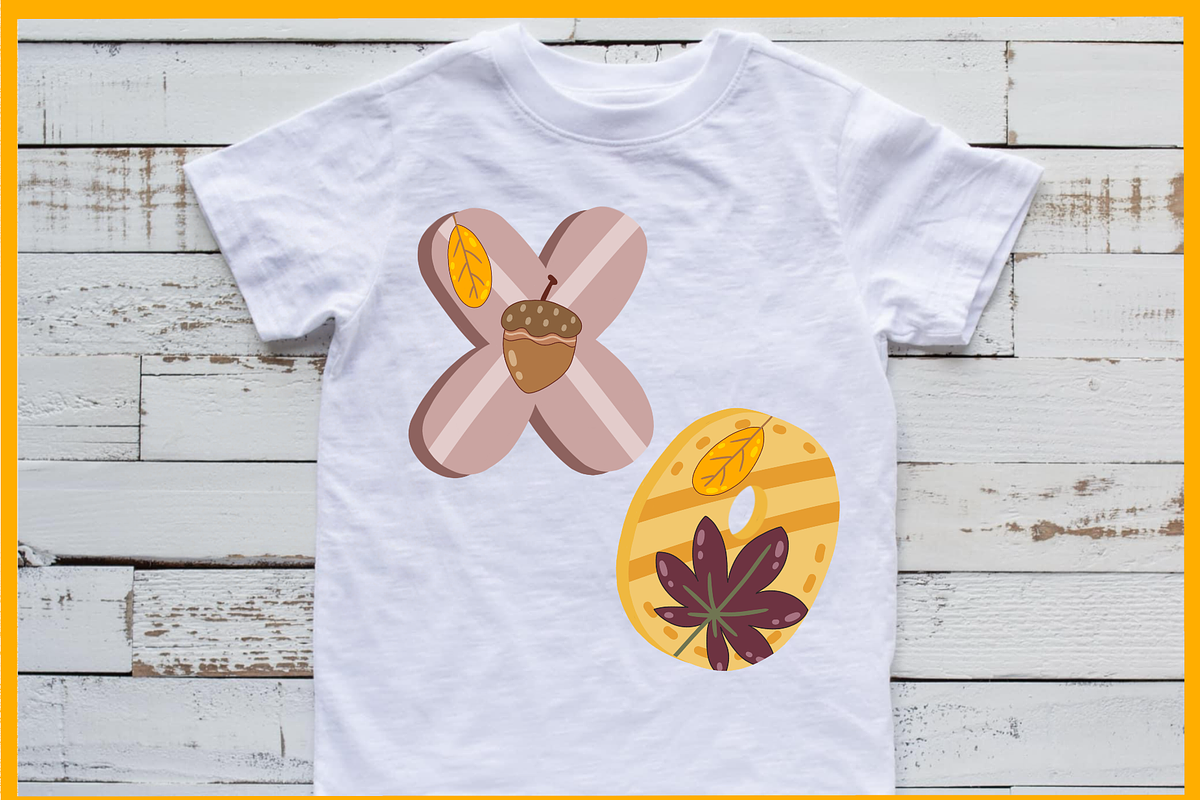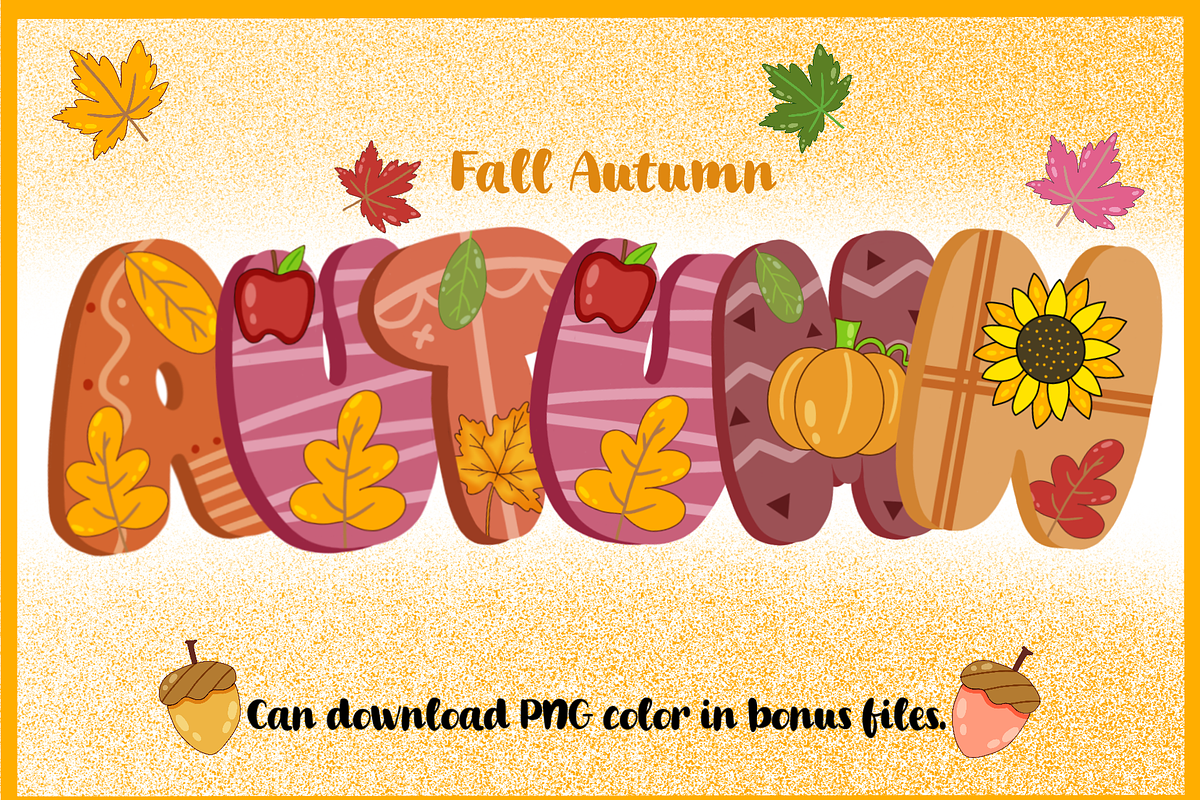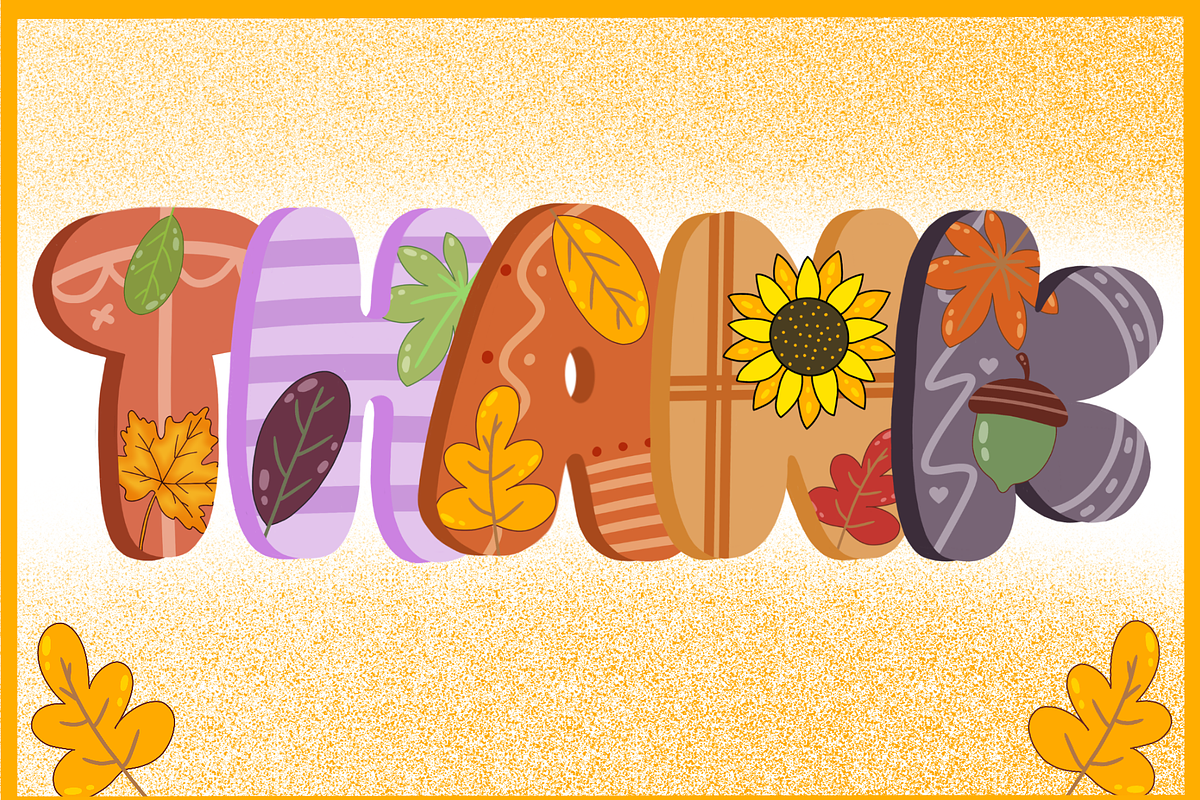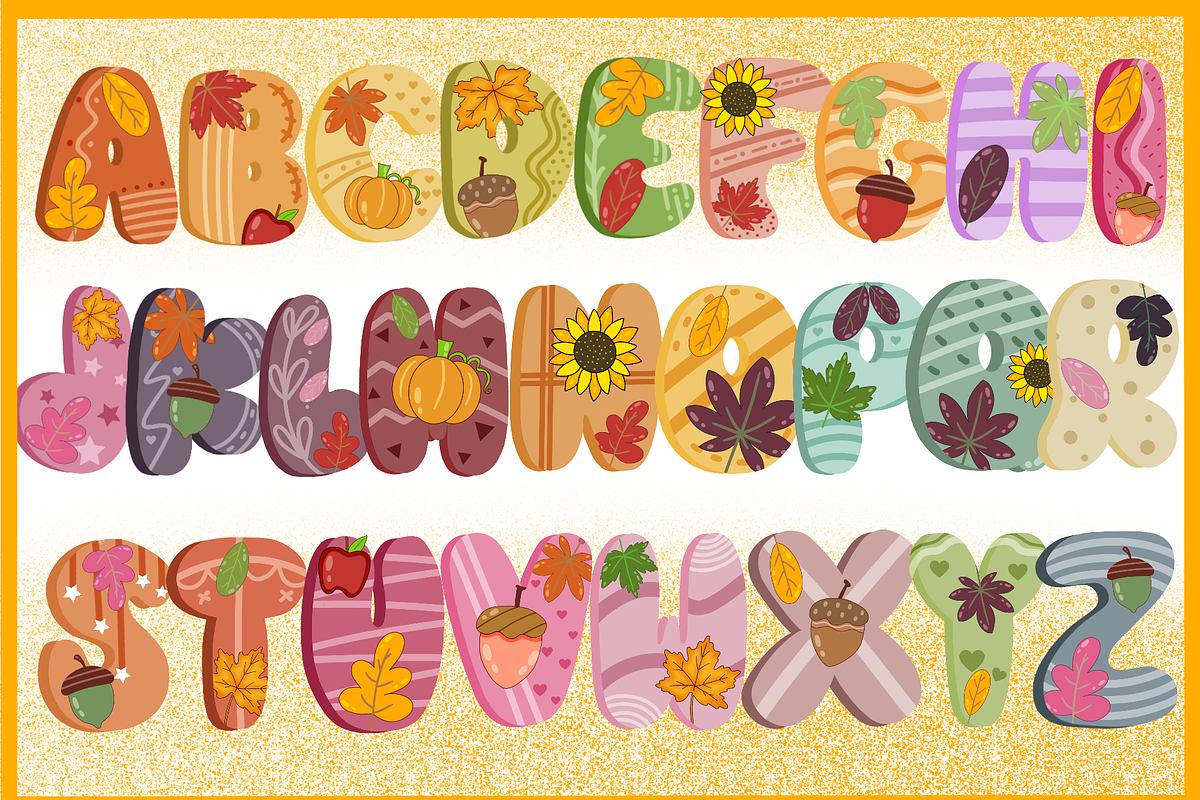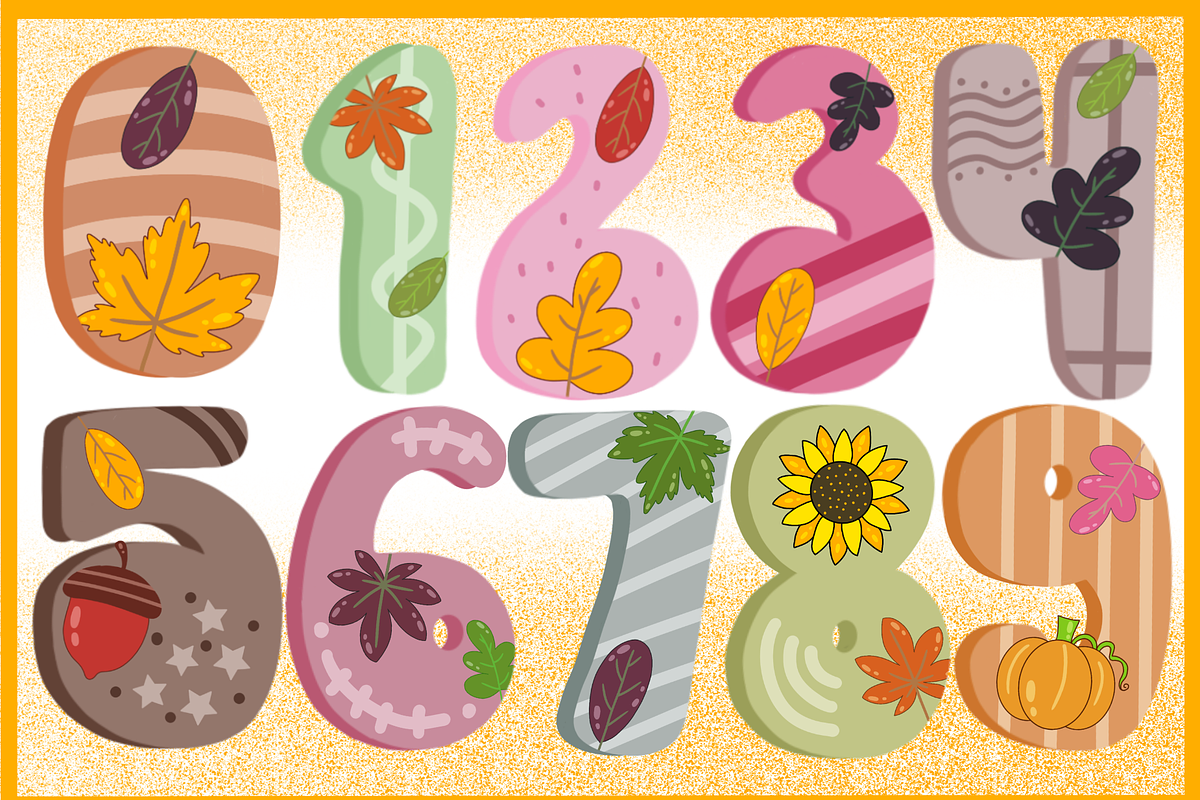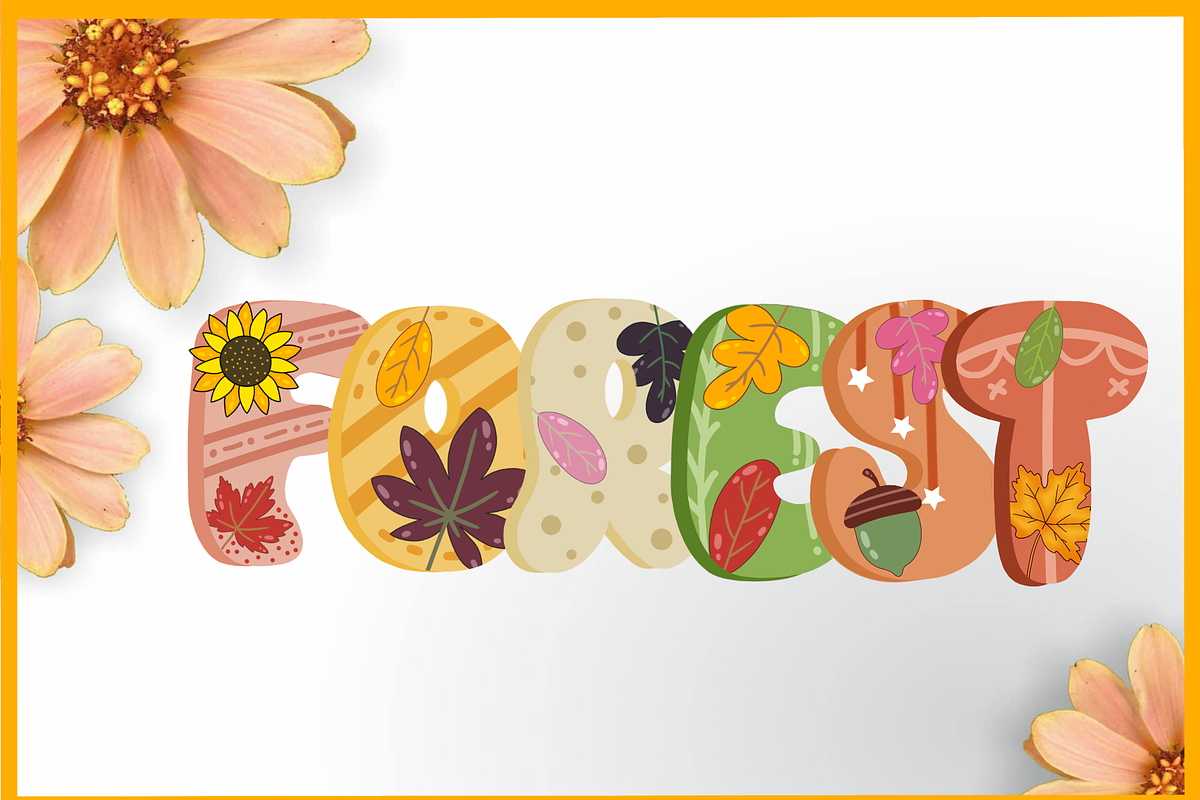
Fall Autumn-PNG fonts
Fall Autumn Font Fall Autumn is a charming font that captures the cozy and colorful vibes of the autumn season. With its decorative style, it adds a touch of warmth and elegance to any project, making it perfect for invitations, posters, and seasonal designs.